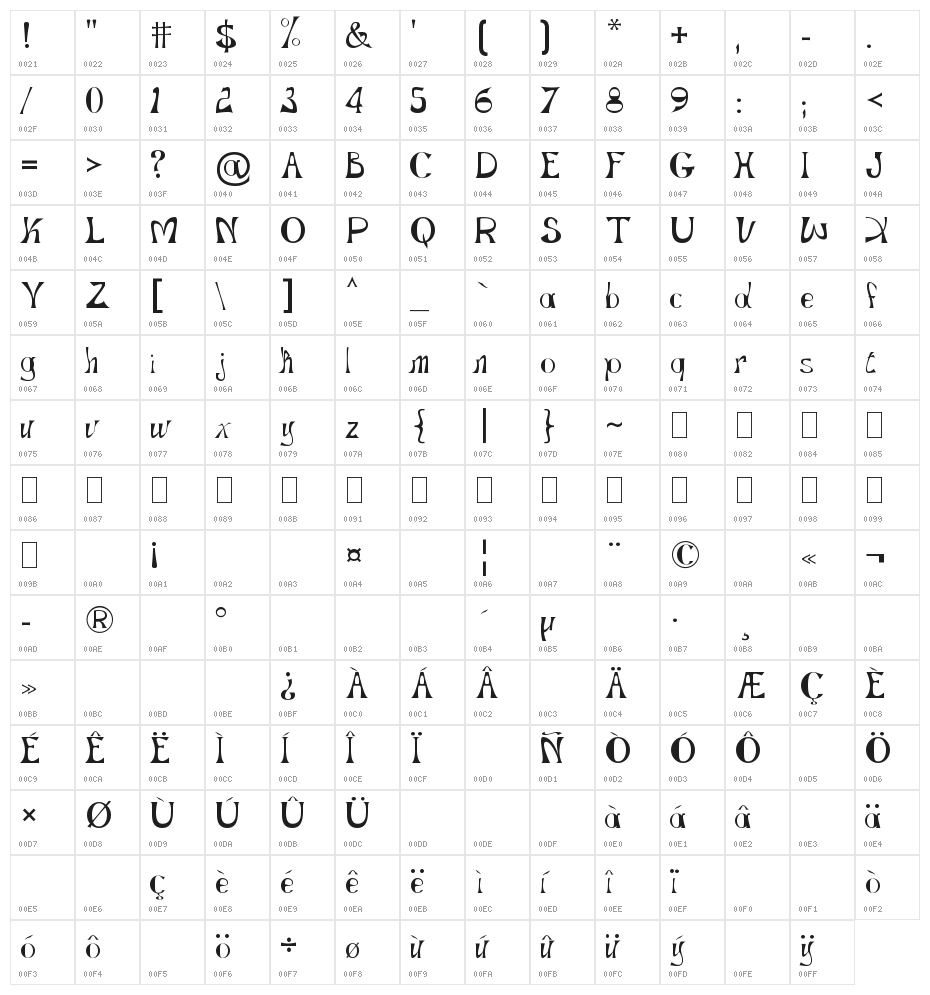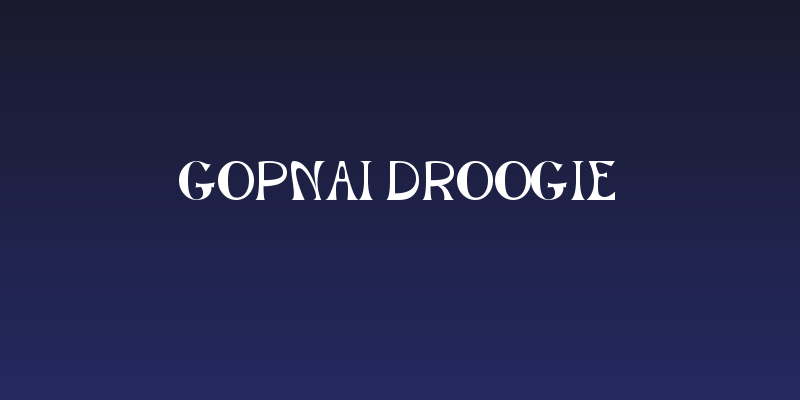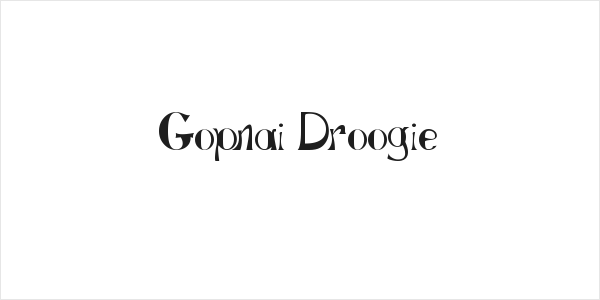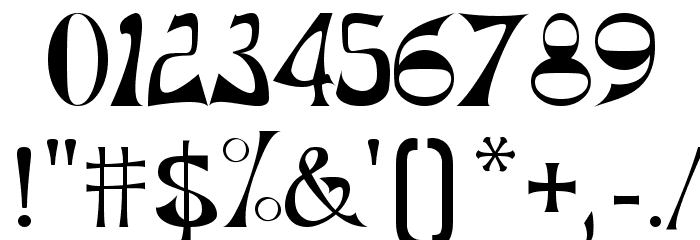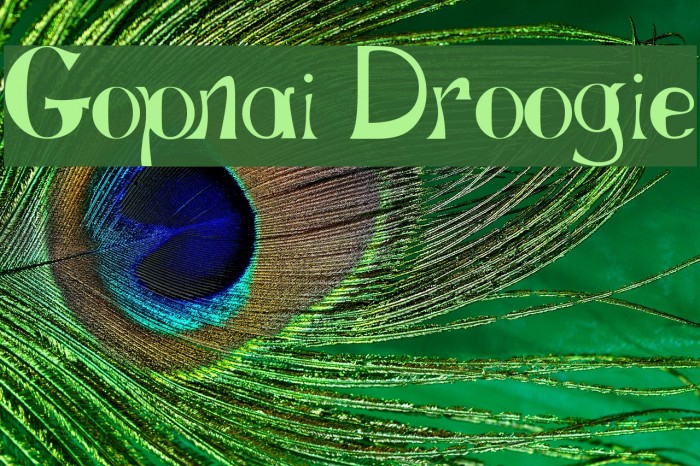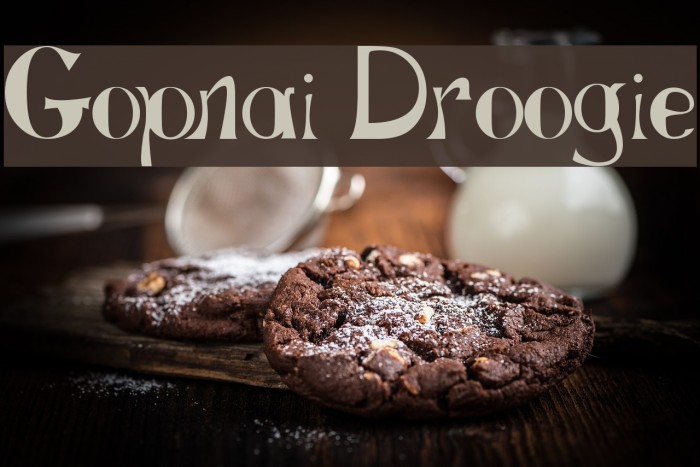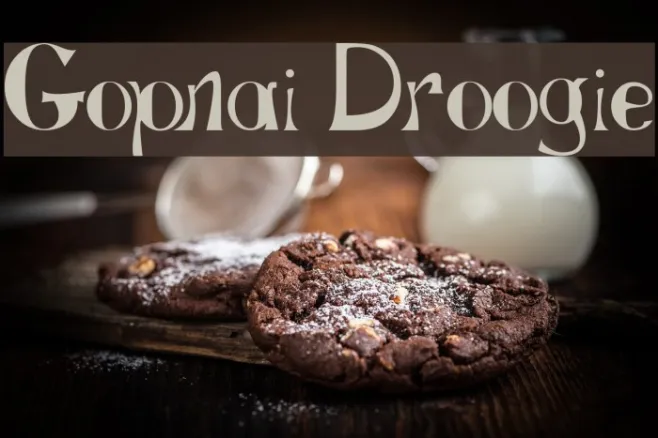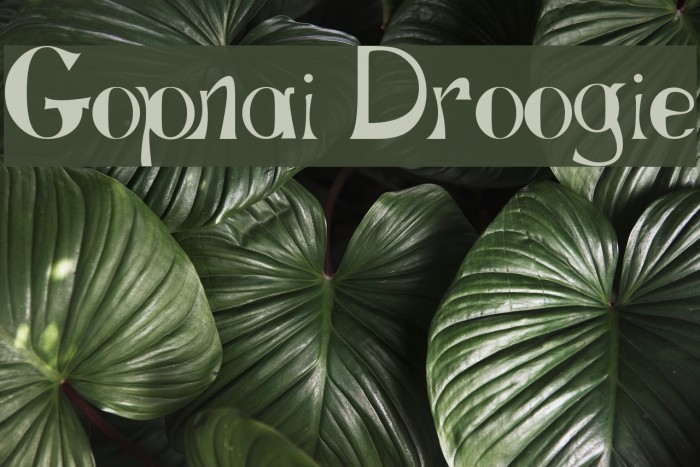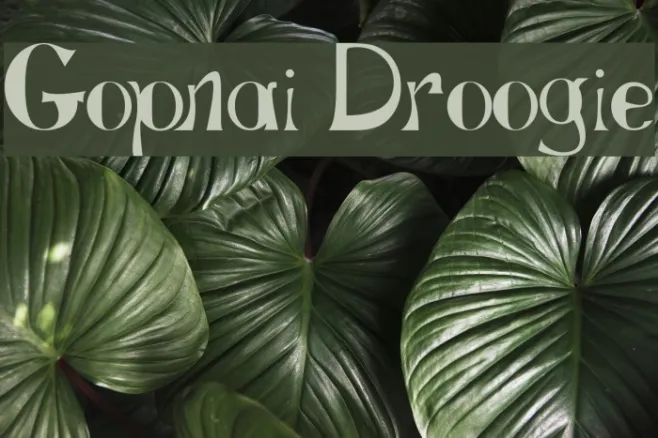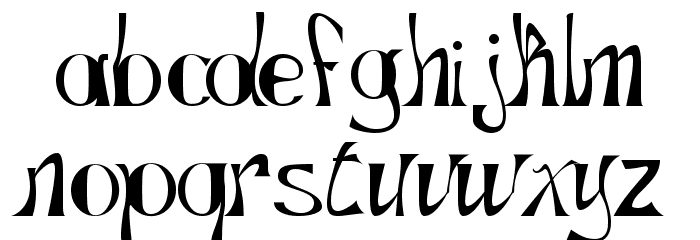
Gopnai Droogie Font
Gopnai Droogie Description
This font features a unique and artistic style with a blend of sharp angles and smooth curves, creating a dynamic and eye-catching appearance. The uppercase letters have a bold presence with exaggerated serifs and varying stroke widths, while the lowercase letters maintain a playful yet sophisticated look. The numbers are equally distinctive, with a consistent boldness that complements the overall design. Special characters are creatively integrated, maintaining the font's artistic flair. This font is perfect for projects that require a bold and creative touch.